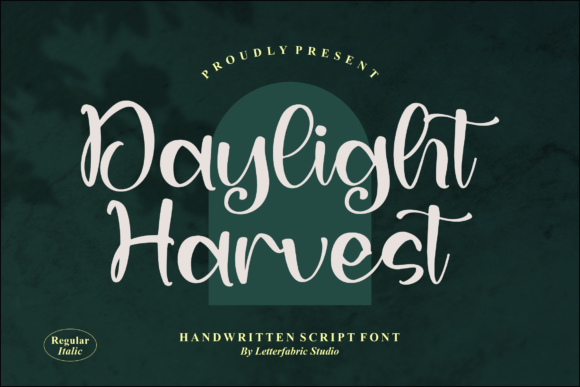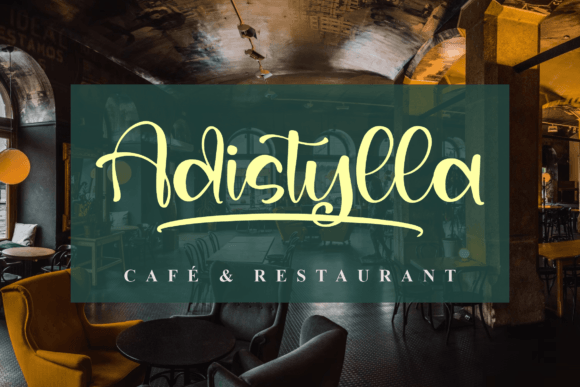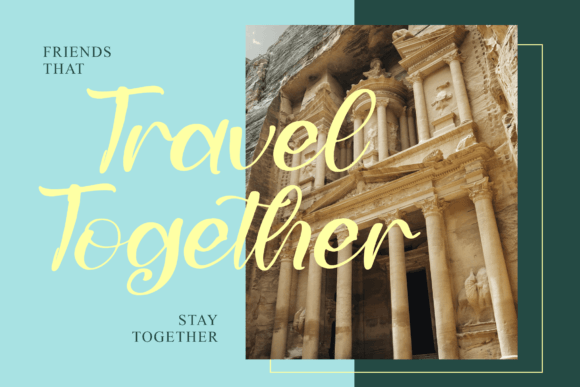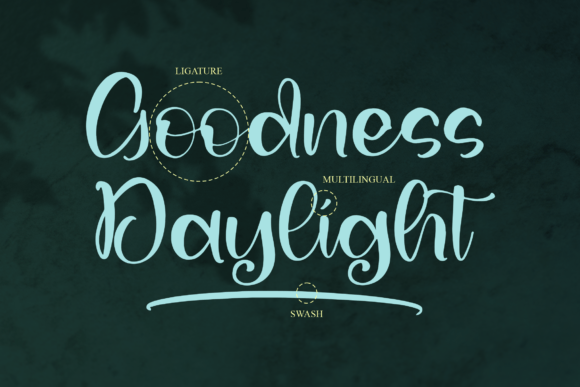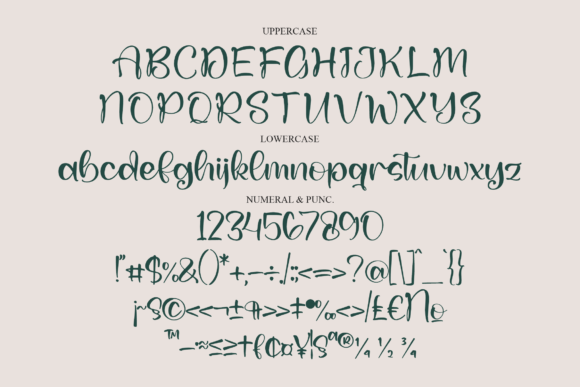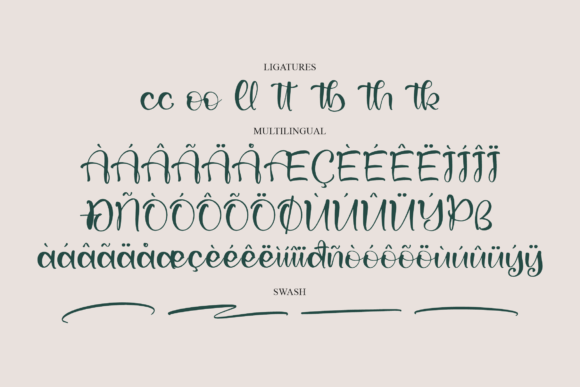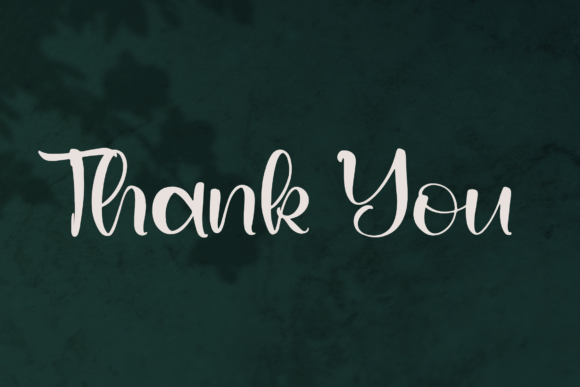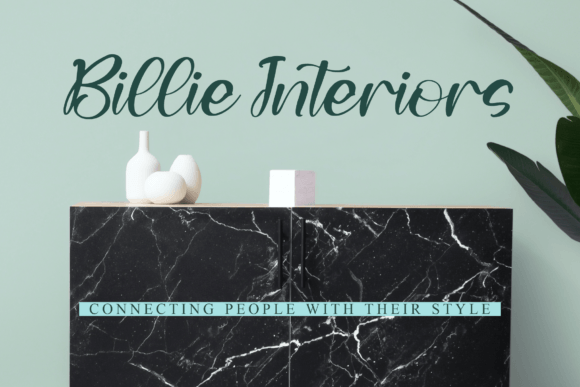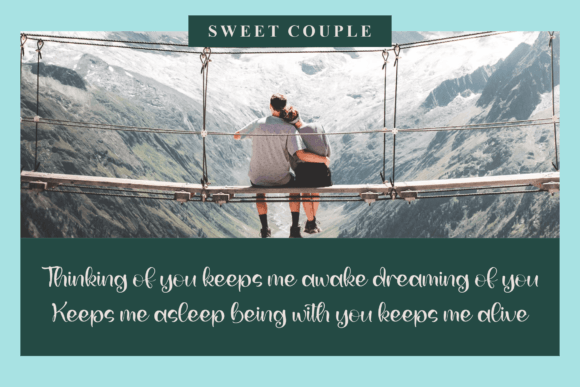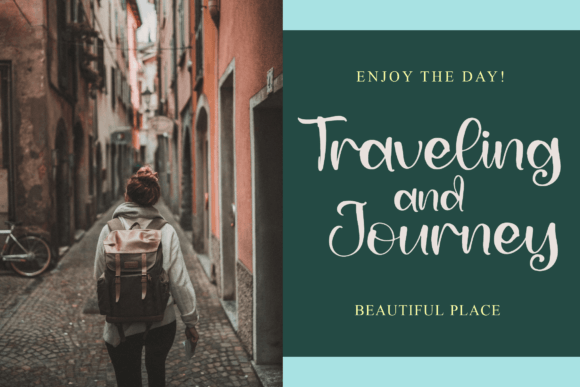
Daylight Harvest Font
About Daylight Harvest Font
Daylight Harvest is a captivating handwritten script font designed to bring a sense of warmth and charm to your creative projects. This versatile font is suitable for a wide range of applications, making it an excellent choice for logos, branding, homeware designs, product packaging, mugs, quotes, posters, shopping bags, t-shirts, book covers, name cards, invitation cards, greeting cards, labels, photography, watermarks, special events, and any other project that requires a beautiful script touch.
The unique charm of Daylight Harvest lies in its handwritten and organic script, which adds a personal and authentic feel to your designs. Whether you’re creating a logo that needs a touch of handcrafted elegance or designing product packaging that requires a script font with character, Daylight Harvest brings a beautiful script taste to your projects.
The versatility of Daylight Harvest shines through in its adaptability to various design applications. From homeware designs to T-shirts and book covers, this font enhances the visual aesthetics, adding a touch of charm and sophistication to your creations.
The suitability of Daylight Harvest for special events, such as invitations and greeting cards, adds a personalized and intimate touch to these occasions. Its application in photography and watermarks further showcases its ability to leave a lasting impression with a unique and beautiful script style.
Embrace Daylight Harvest as your preferred script font for all your lovely projects, and witness how it infuses a beautiful script taste into your designs. Its organic and handwritten characteristics make it an ideal choice for projects that require a touch of authenticity and a dash of elegance. Let Daylight Harvest be the key to adding warmth and charm to your creative endeavors.